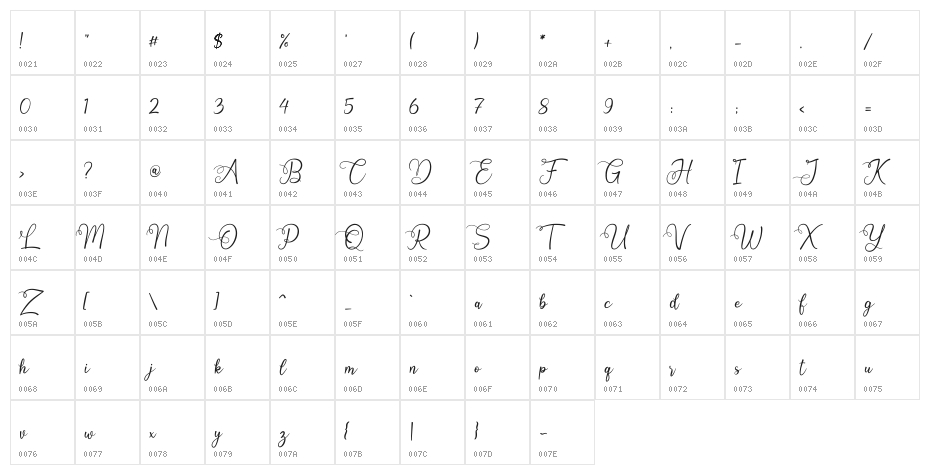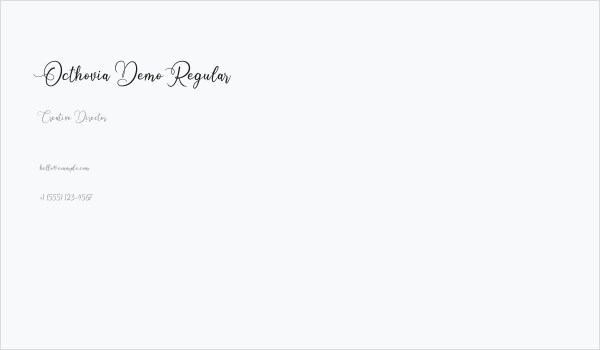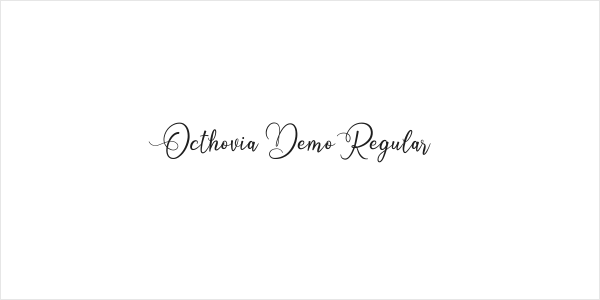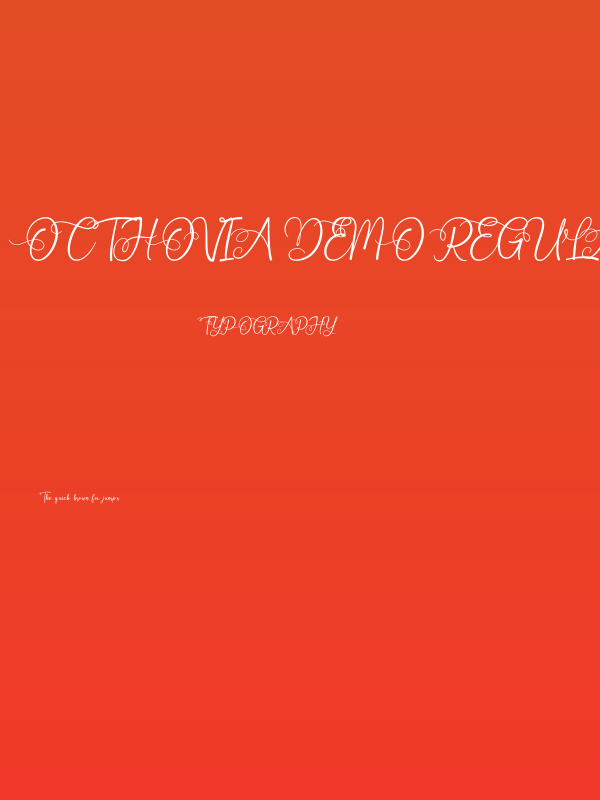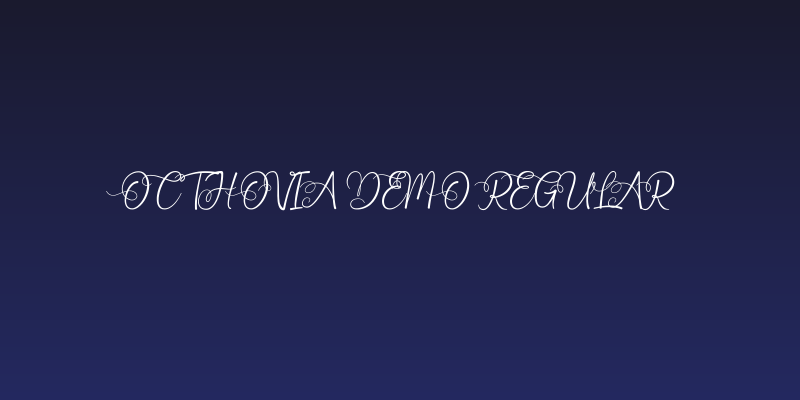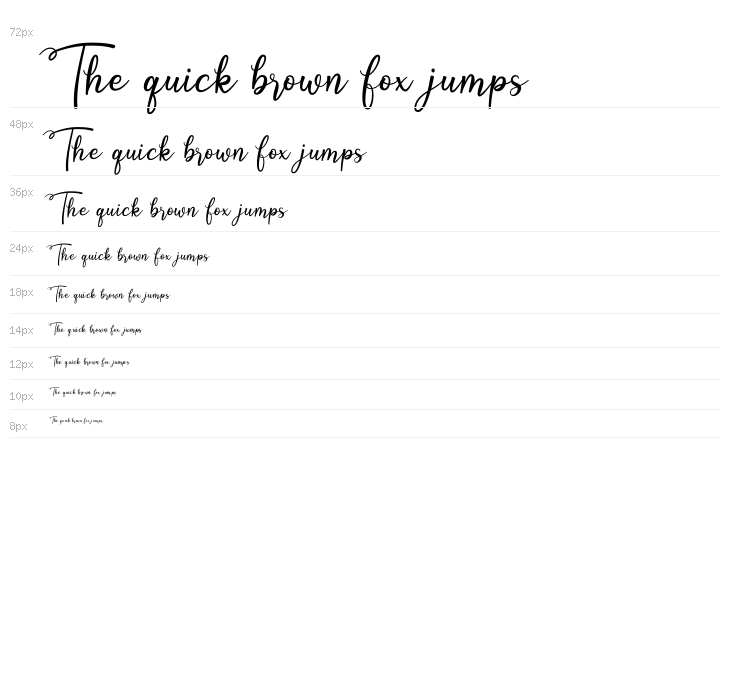
Octhovia Demo Regular Font
Octhovia Demo Regular Description
This font features an elegant and flowing script style, characterized by its intricate swirls and loops that give it a sophisticated and artistic appearance. The uppercase letters are particularly ornate, with decorative flourishes that enhance their visual appeal. The lowercase letters maintain a more subdued elegance, offering a balanced contrast to the elaborate uppercase. The numerals and special characters are consistent with the overall style, ensuring a cohesive look across all glyphs. This font is ideal for projects that require a touch of elegance and creativity, such as wedding invitations, branding, and decorative headings.
| Proposed Projects | Wedding invitations, branding, decorative headings, artistic projects. |